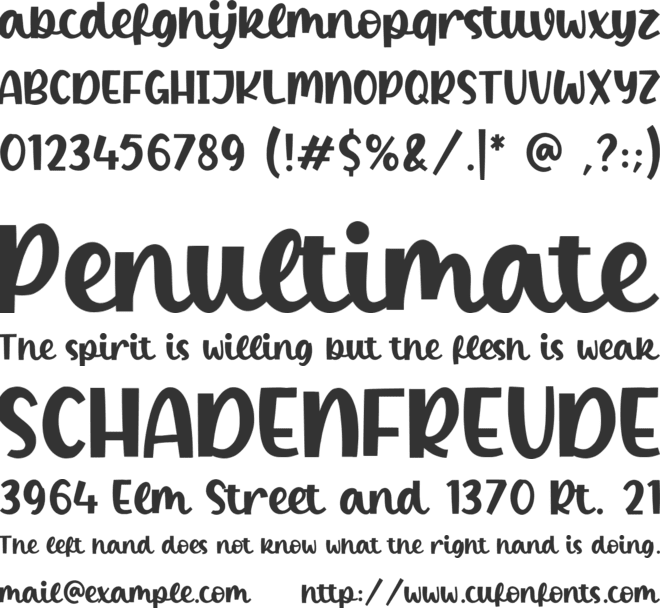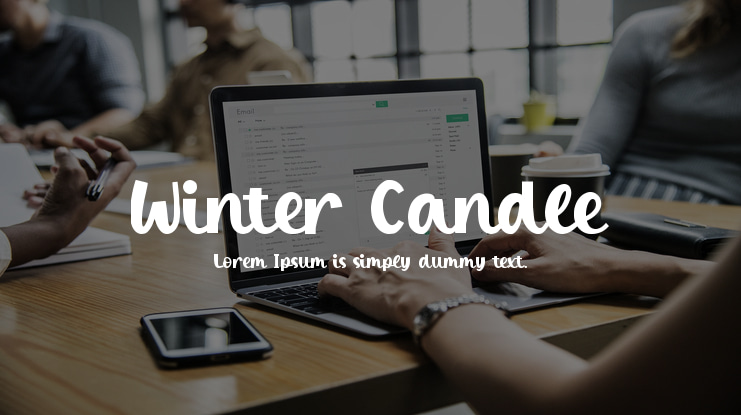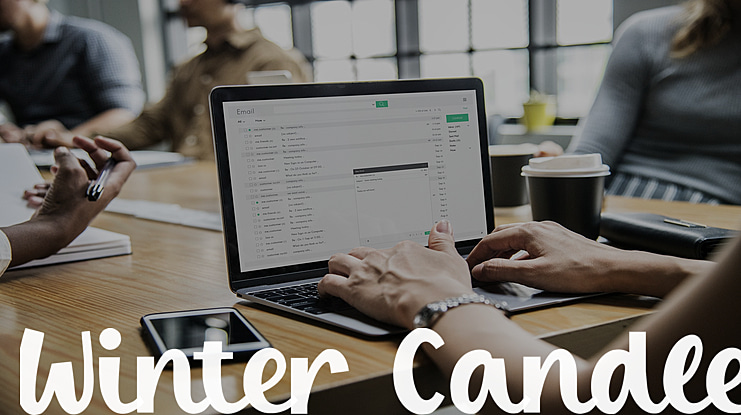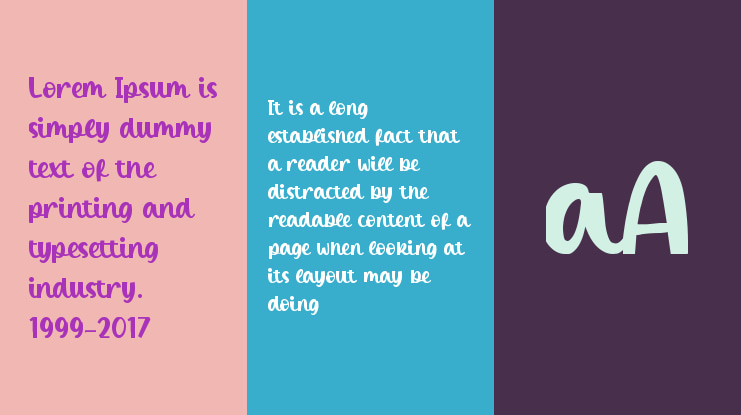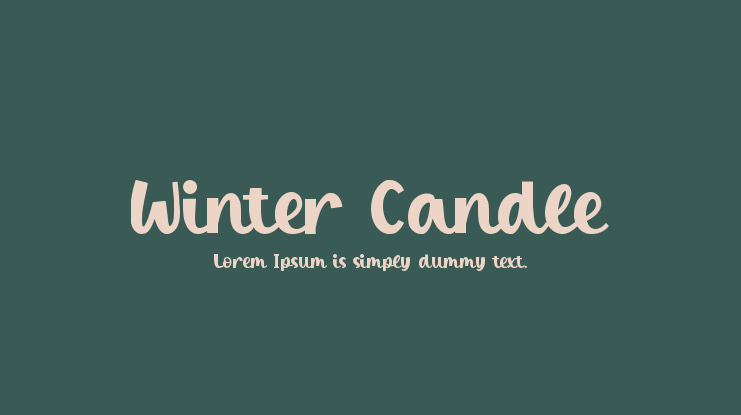
Winter Candle Font
Proudly Present, Winter Candle Font.
Winter Candle is a Modern Handbrushed Font.
Winter Candle is perfect for product packaging, branding project, megazine, social media, wedding, or just used to express words above the background.